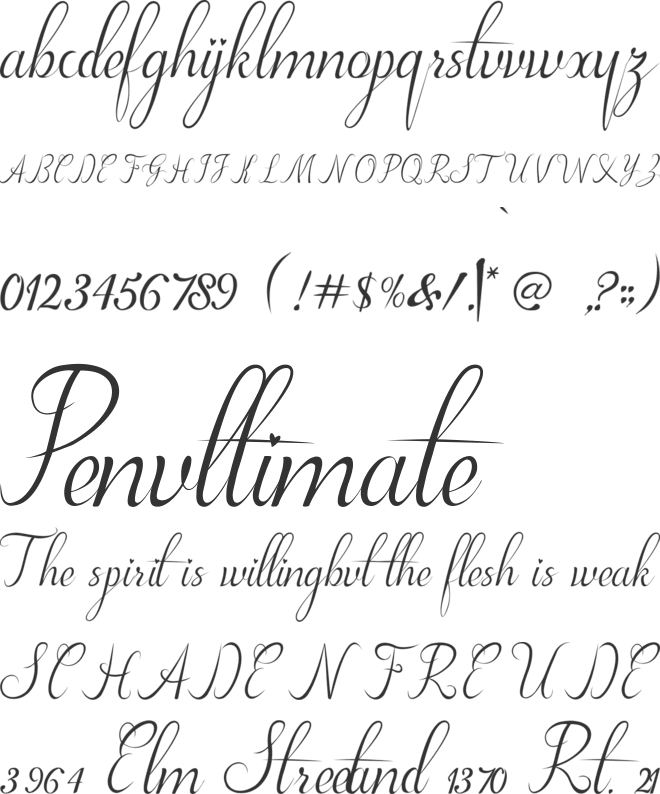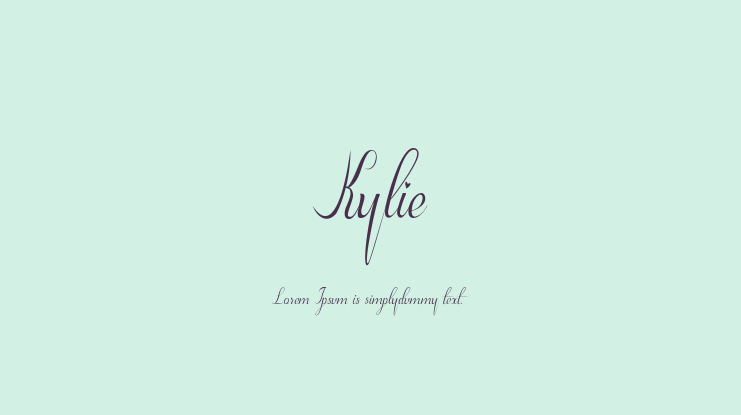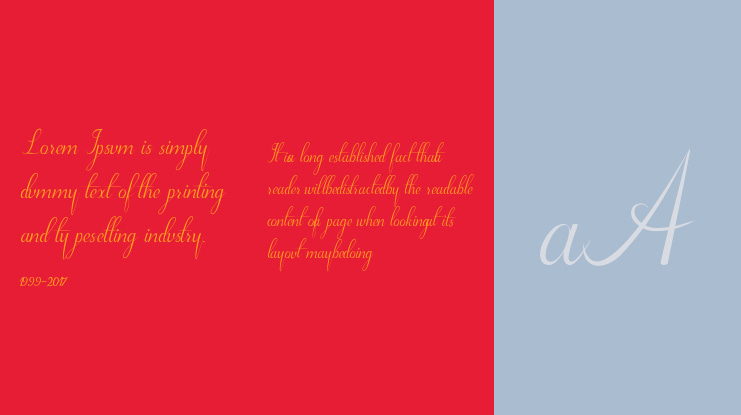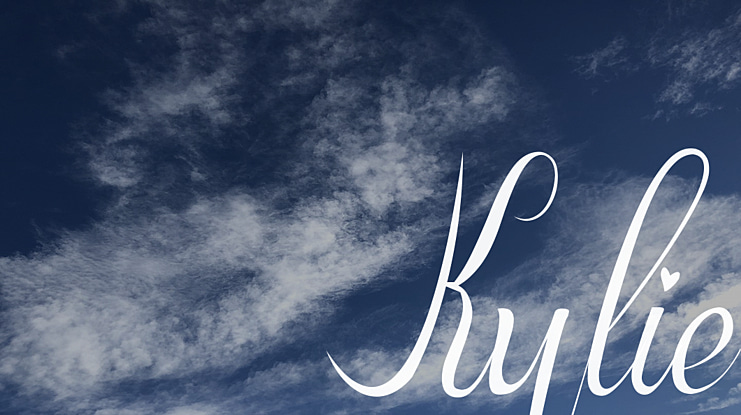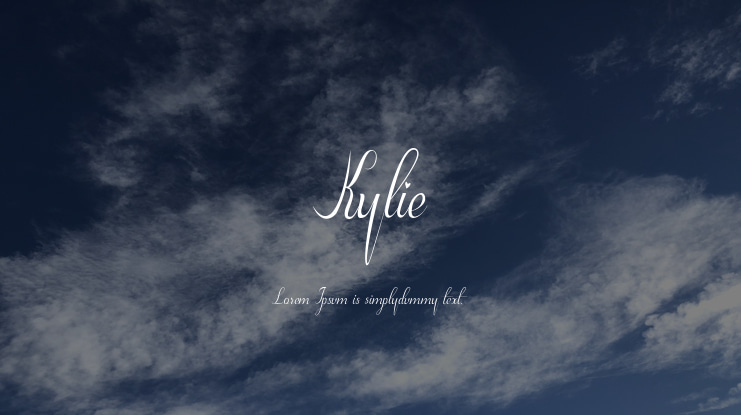
Kylie Font
Kylie a natural and stylish script font. It looks perfect on invitations, logos & branding , photography, advertisements, watermark, social media posts and so much more. This font is PUA encoded which means you can access all of the glyphs and swashes with ease!